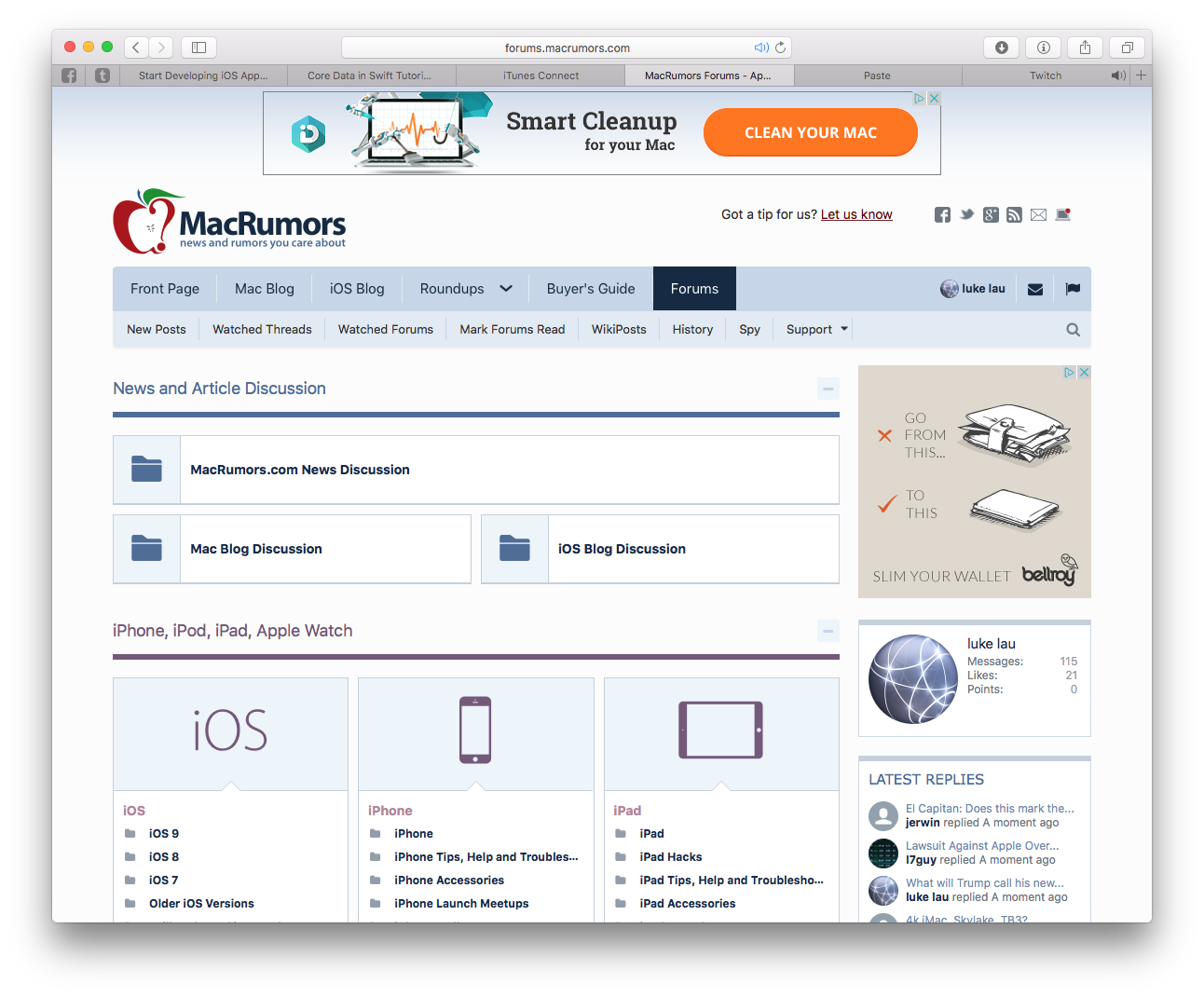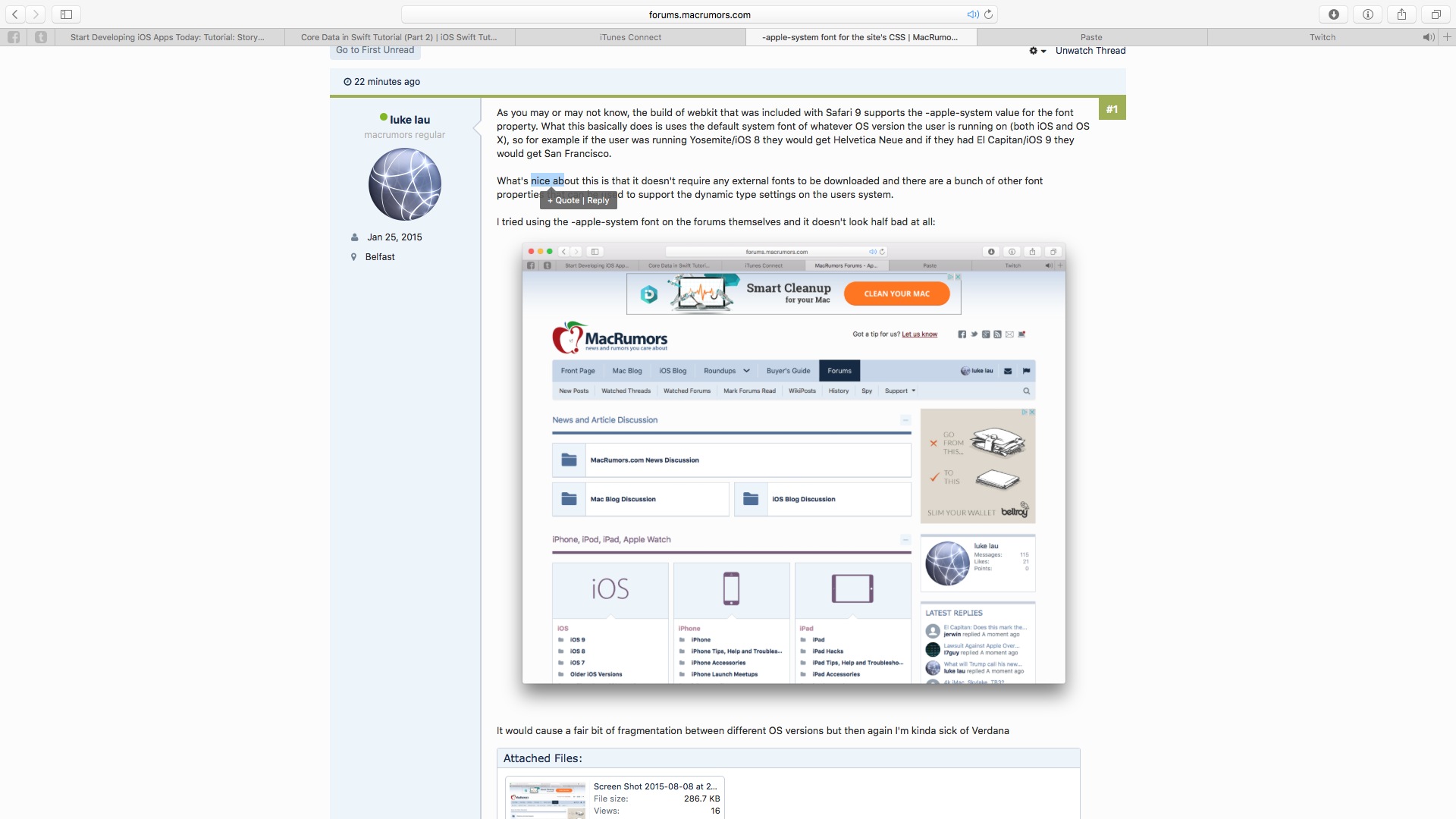
As you may or may not know, the build of webkit that was included with Safari 9 supports the -apple-system value for the font property. What this basically does is uses the default system font of whatever OS version the user is running on (both iOS and OS X), so for example if the user was running Yosemite/iOS 8 they would get Helvetica Neue and if they had El Capitan/iOS 9 they would get San Francisco.
What's nice about this is that it doesn't require any external fonts to be downloaded and there are a bunch of other font properties that can be used to support the dynamic type settings on the users system.
I tried using the -apple-system font on the forums themselves and it doesn't look half bad at all:
It would cause a fair bit of fragmentation between different OS versions but then again I'm kinda sick of Verdana
Ya, it's not bad. Can you post a screenshot of a thread?
We stuck with verdana because people are used to it on the site, and we wanted to keep a common thread between designs.
I'm using Safari 8 on Yosemite, so it's required a bit more work to implement, but worth it in the little while I've used San Francisco on here 🙂